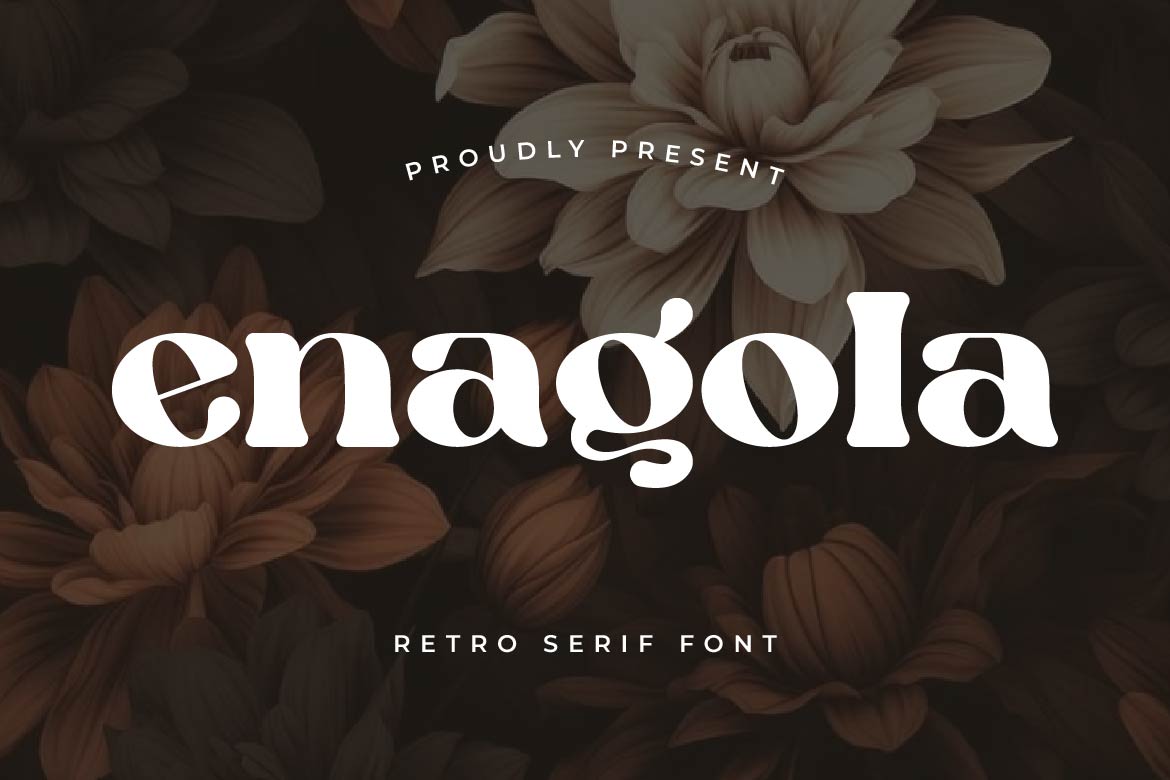
- Enagola – Retro Serif Font
Enagola is an elegant retro serif font with soft, sweeping curves and a refined, feminine character. Its rounded terminals and gentle contrast give the typeface a graceful, romantic quality, while its bold weight keeps every word confident and easy to read at display size.
The distinctive curvature running through letters like the lowercase “g” and “a” gives Enagola a cohesive, decorative rhythm that feels handcrafted rather than mechanical. This makes it especially effective for short headlines, wordmarks, and titles where character and elegance matter more than dense text.
Enagola is a beautiful fit for beauty and cosmetics branding, floral and botanical packaging, wedding stationery, boutique logos, fashion editorials, perfume labels, and any project that calls for a soft, luxurious retro touch. Its vintage elegance also works well for lifestyle magazines, invitation suites, and feminine product branding.
Soft, bold, and effortlessly elegant — Enagola brings timeless romantic charm into modern typography.
Enagola — an elegant retro serif font with a soft, feminine touch.